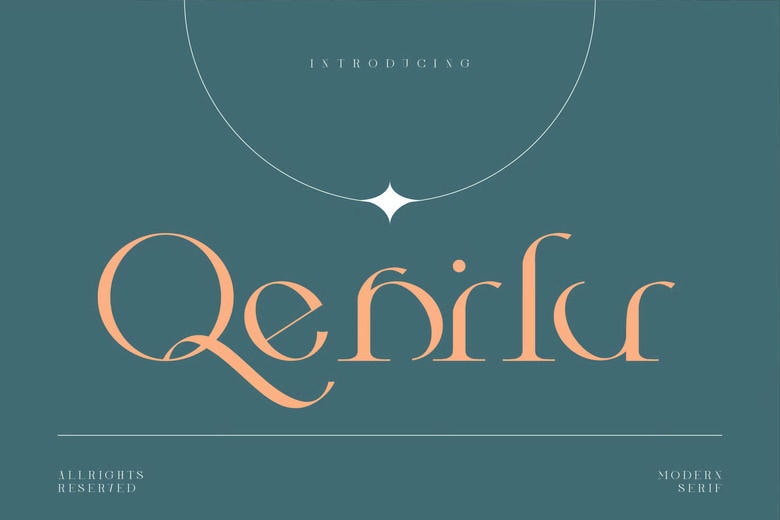
Qenilu Font
Qenilu is a high-tech serif typeface which is both classy and classic. Its smooth lines and unique serifs make it a perfect blend of the traditional and the new sensibilities. Velinu has been made in such a way that it gives the feeling of luxury and grandiose and it can be used in high end branding, editorial designs, and any other project that requires a certain degree of elegance.
Qenilu Serif Font